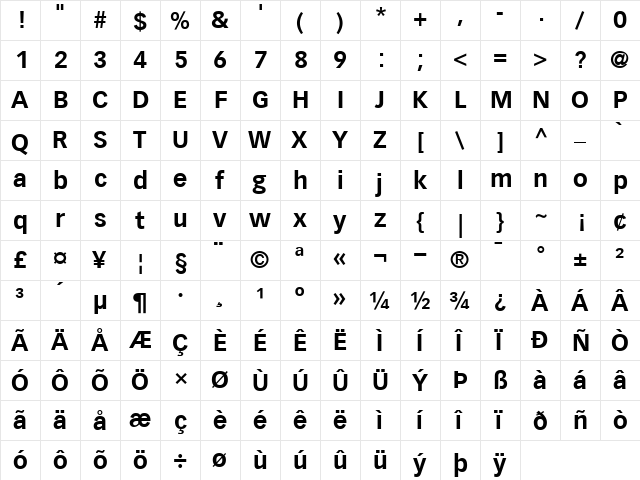
VectoraLH75 Bold
Design Context for VectoraLH75 Typeface
VectoraLH75 takes a measured approach to typography — its balanced proportions and neutral character make it a reliable workhorse for both digital and print work. Its bold stroke weight gives it real presence on the page.